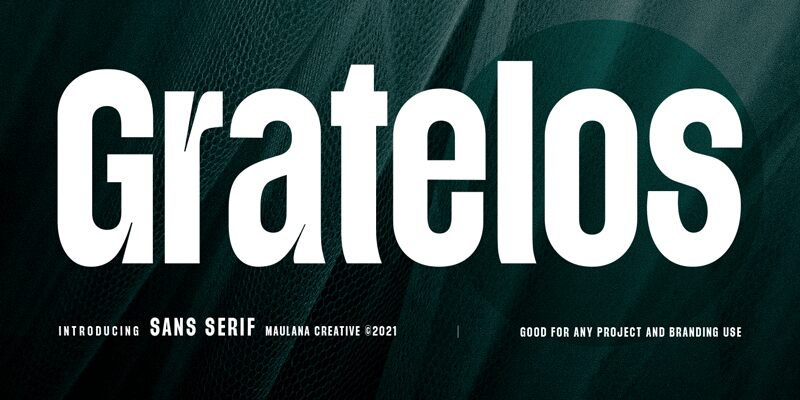
Gratelos Display, designed by Maulana Creative, is a sleek and modern sans serif font that is perfect for projects that require a bold and contemporary look. With its extra-condensed width, this font will make any headline or title stand out from the crowd. Whether you're designing a fashion magazine or creating branding for a high-tech startup, Gratelos Display's clean lines and sharp edges will give your project an edge. Use it for posters, logos, packaging design, and more - the possibilities are endless with this powerful typeface at your fingertips!
Gratelos Display